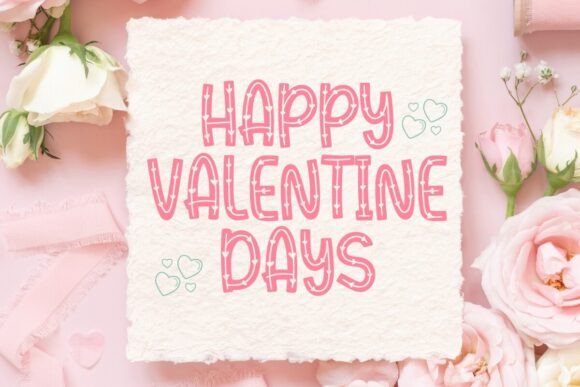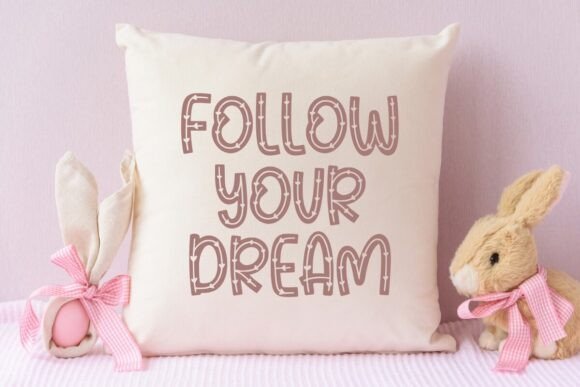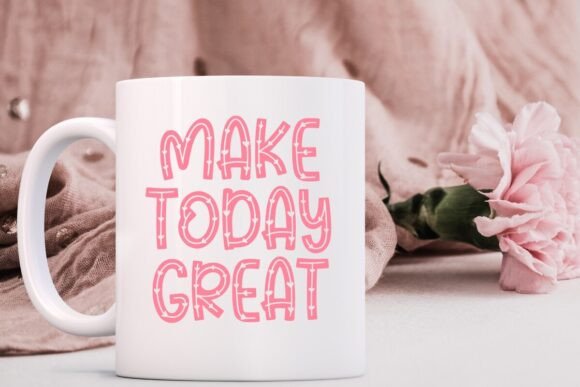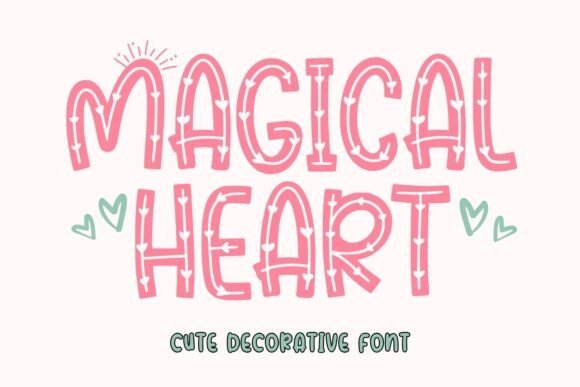
Introduction to Magical Heart Font
Immerse yourself in the captivating charm of Magical Heart, a decorative font crafted with whimsical elegance.
Its versatile character makes it perfect for jotting down thoughts in your journal, personalizing heartfelt greetings, or even scribbling in your beloved notebook But Magical Heart doesn’t just stop at being a personal font, it marries seamlessly into your creative projects.